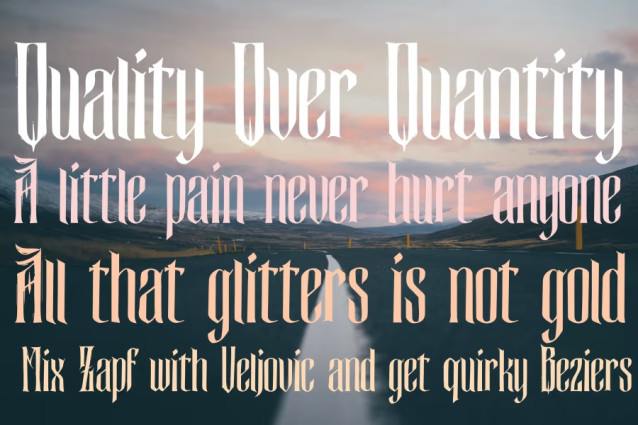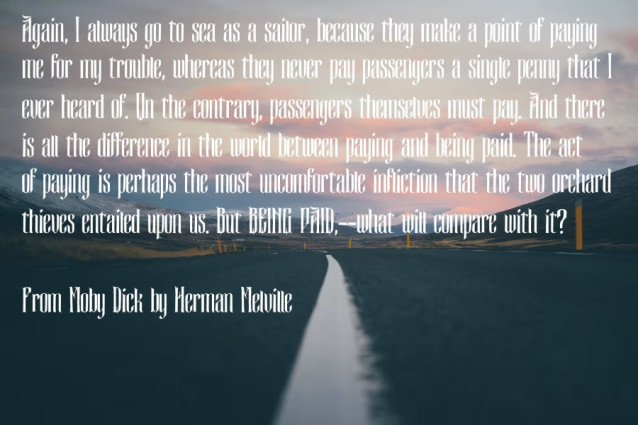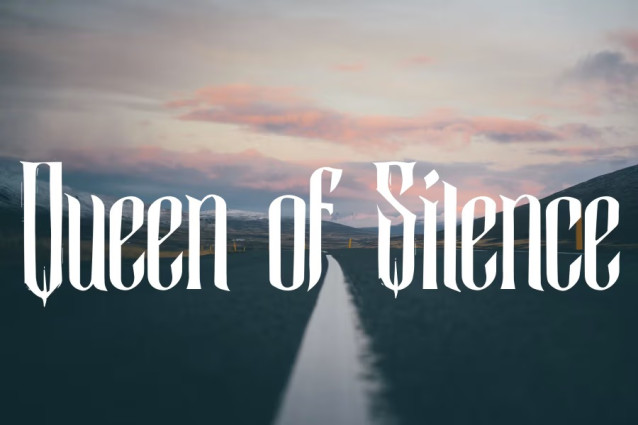
Queen of Silence Font
Queen of Silence Font is a simple and modern display font suitable for quotes, logos, headings, titles, and many more. Use it on any of your creative projects, and your designs will become outstanding!